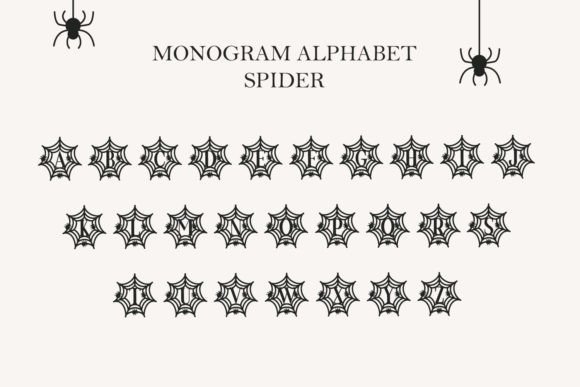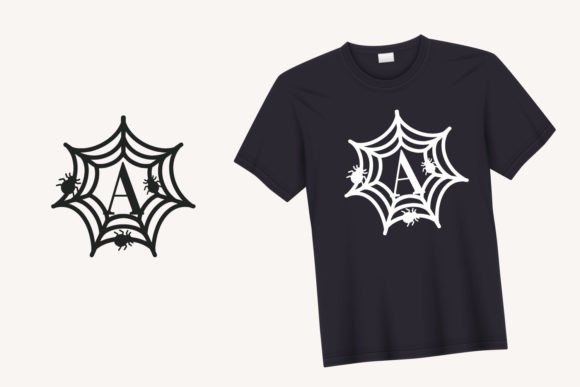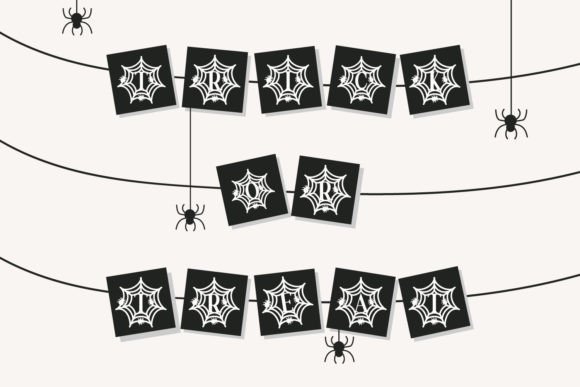
Introduction to Monogram Alphabet Spider Font
Monogram Alphabet Spider is a fun and spooky decorative font.
It is perfectly suitable for any Halloween-related project or crafty idea The only limit is your imagination.
Key Features of Monogram Alphabet Spider Font